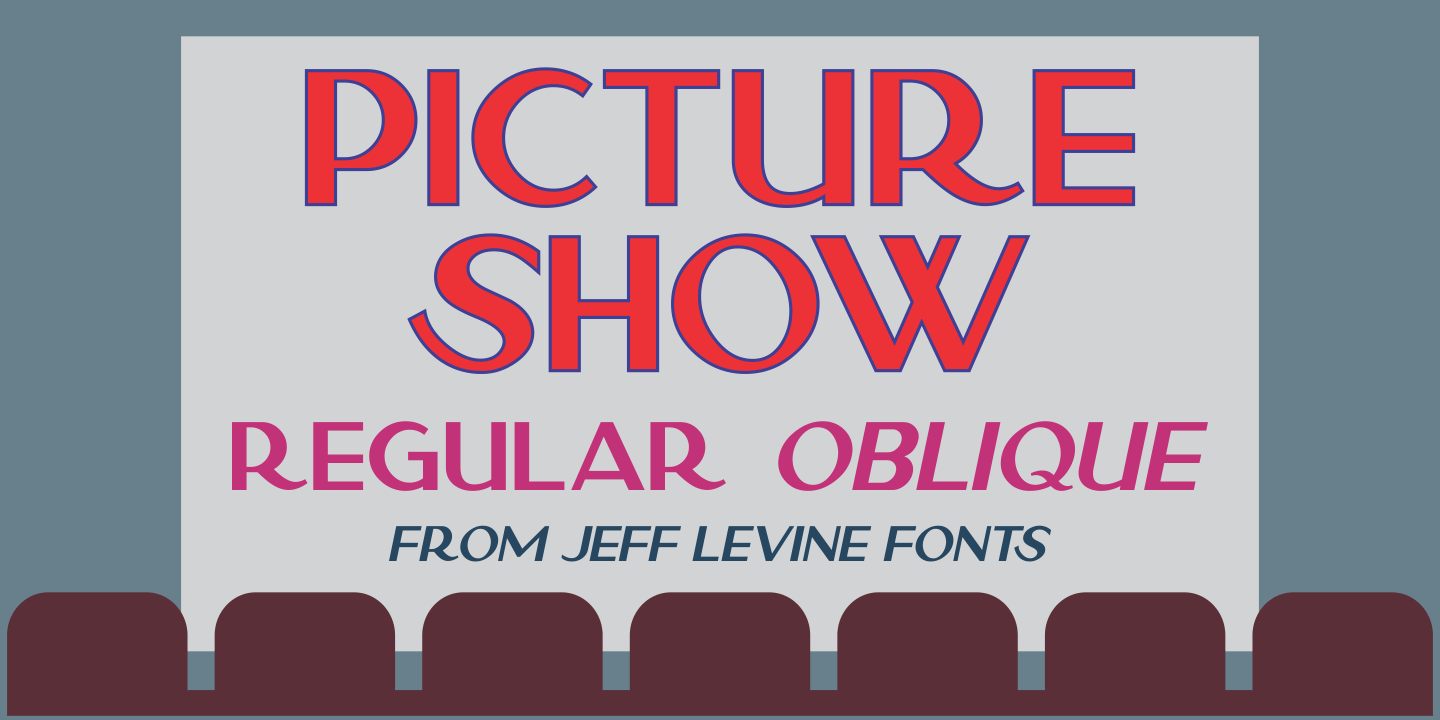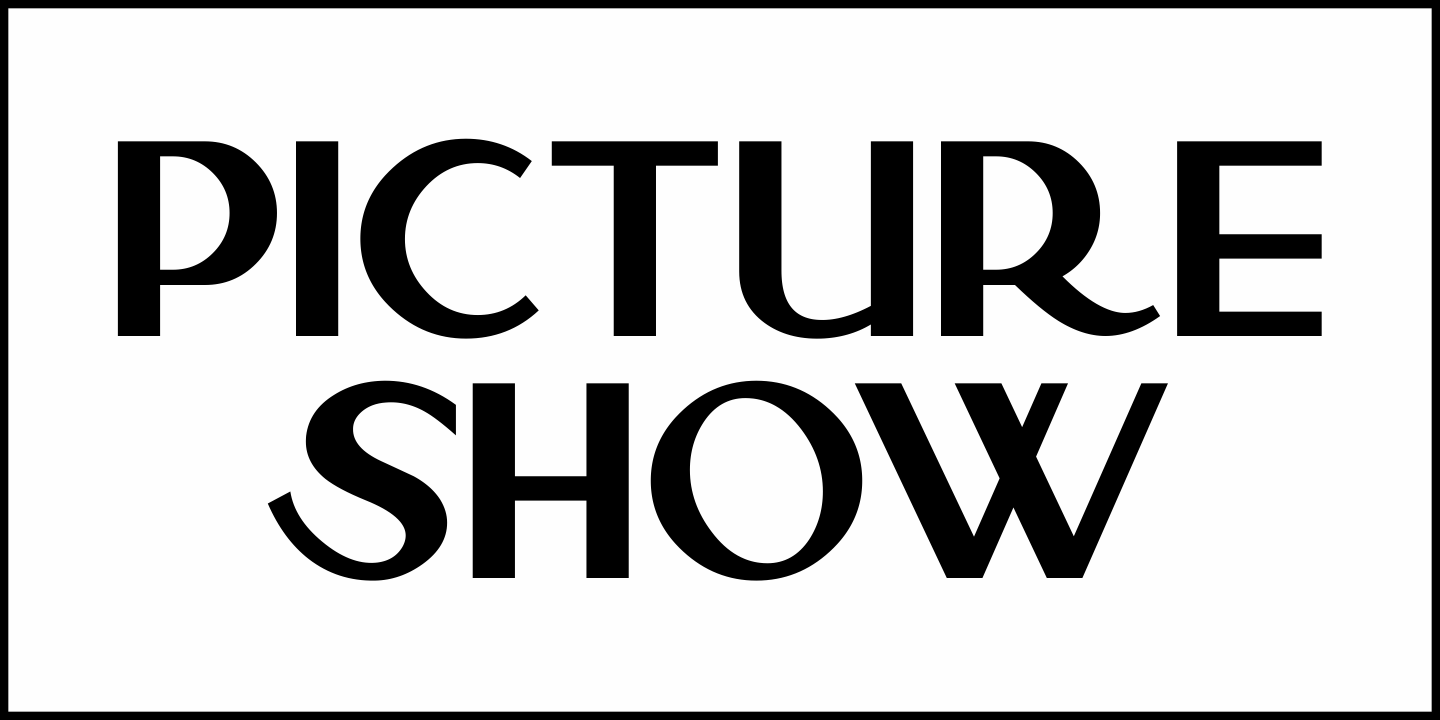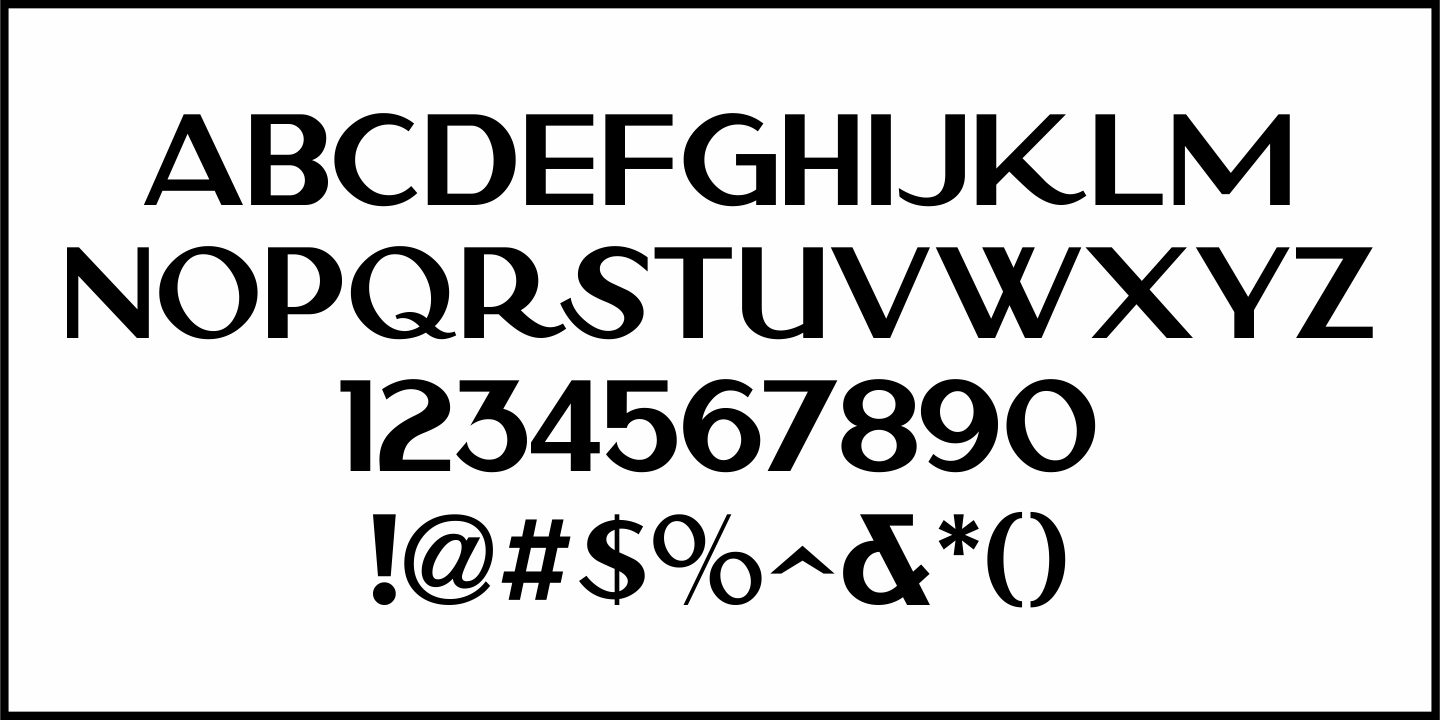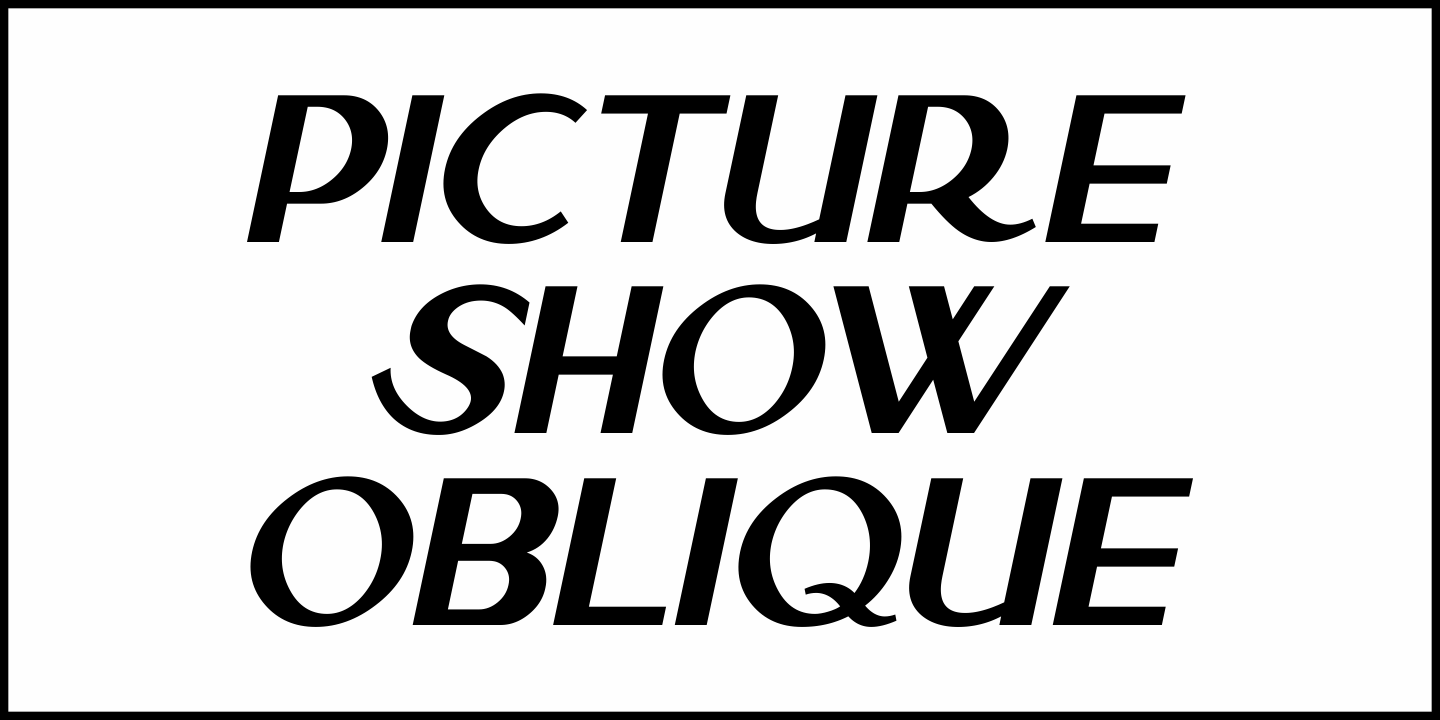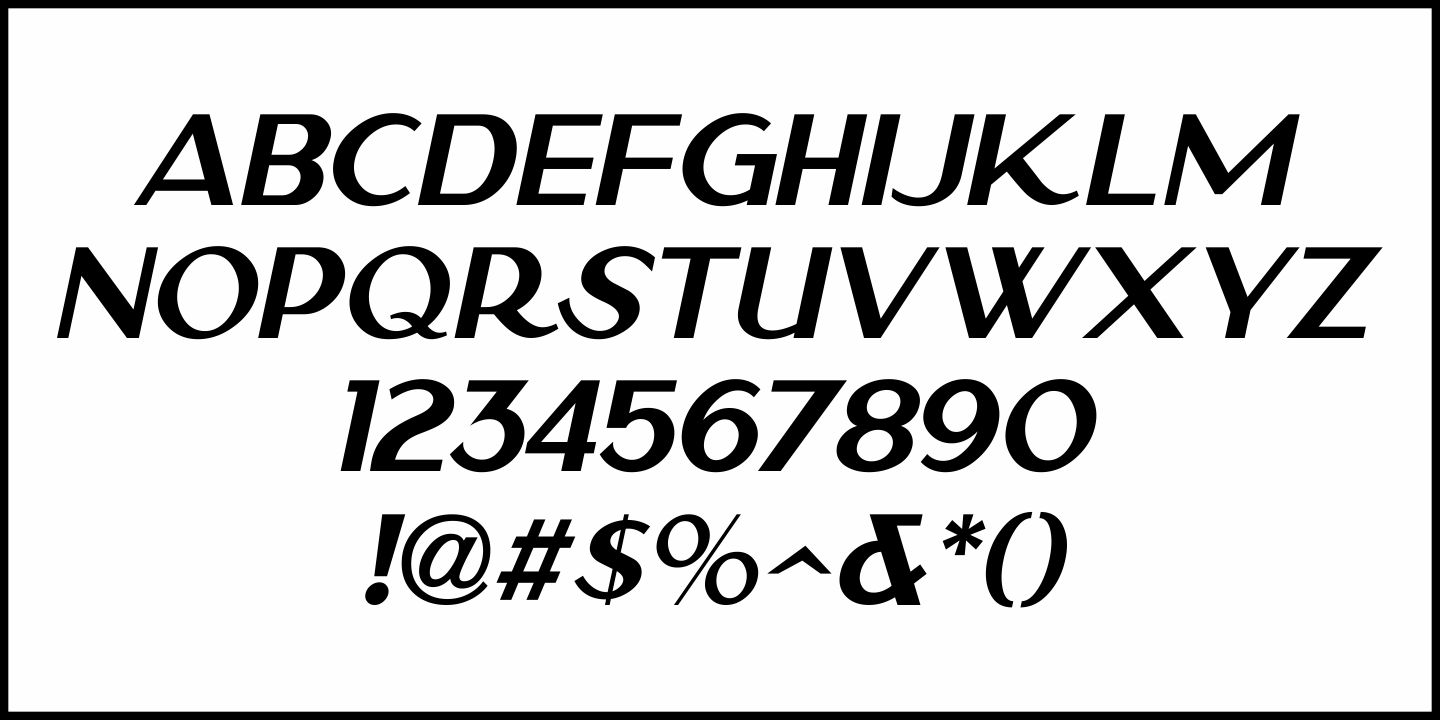
Picture Show
An ad promoting the 1919 silent film comedy “Back Stage” starring Roscoe “Fatty” Arbuckle was hand lettered in a thick-and-thin sans style with Art Nouveau influences.
This lettering is now available digitally as Picture Show JNL, in both regular and oblique versions.